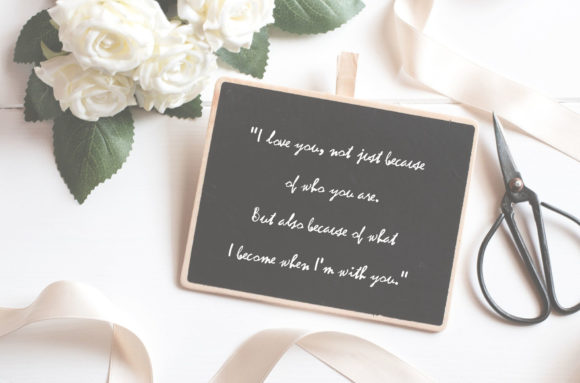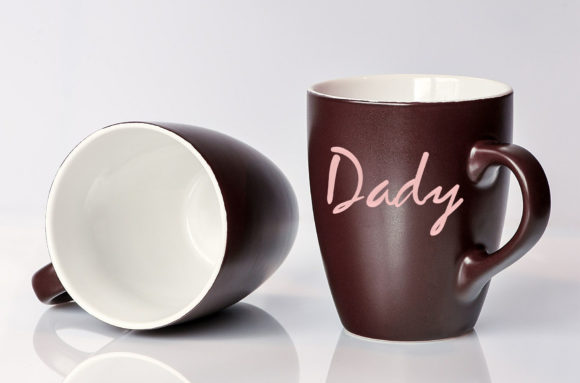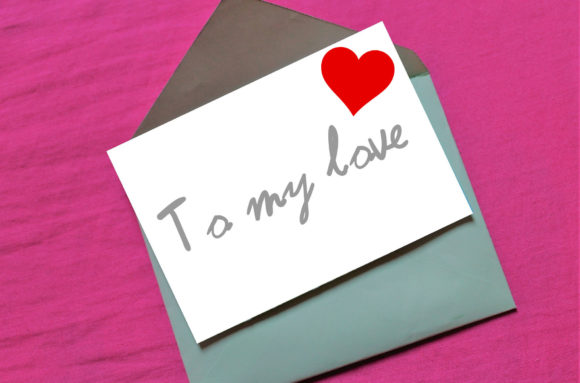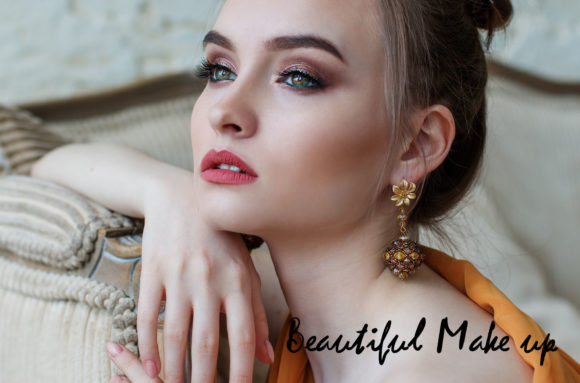
Heart Font: Elevate Your Design with Elegance and Sophistication
Are you looking for a font that exudes luxury, elegance, and sophistication? Look no further than the Heart Font, a beautiful and delicate script font that is sure to add a touch of glamour to any design project. With its unique and flowing characters that dance along the baseline, this font is perfect for designers and crafters who want to create stunning and high-end designs.
What Makes Heart Font So Special?
The Heart Font is a true gem in the world of typography. Its elegant and cursive design makes it perfect for a wide range of design projects, from wedding invitations and branding materials to packaging and advertising. The font features characters that are intricately designed to flow along the baseline, creating a beautiful and harmonious visual effect.
One of the standout features of the Heart Font is its PUA (Private Use Area) encoding. This means that the font includes a range of glyphs and swashes that can be easily accessed and used to add a touch of personality to your designs. With PUA encoding, you can effortlessly create stunning and unique designs that are sure to impress.
Perfect for Luxury Designs
The Heart Font is perfect for designers and crafters who want to create luxury designs that exude elegance and sophistication. Whether you’re working on a high-end branding project, a luxury packaging design, or a wedding invitation, this font is sure to add a touch of glamour and refinement.
The font’s elegant and cursive design makes it perfect for creating beautiful and eye-catching headlines, titles, and text. You can use it to create stunning and sophisticated designs that are sure to leave a lasting impression on your clients and audience.
Key Features of Heart Font
Here are some of the key features that make the Heart Font a must-have for designers and crafters:
- Beautiful and delicate script font: The Heart Font features a unique and flowing script design that is perfect for creating elegant and sophisticated designs.
- PUA encoded: The font includes a range of glyphs and swashes that can be easily accessed and used to add a touch of personality to your designs.
- Luxury and elegant design: The font’s elegant and cursive design makes it perfect for creating high-end designs that exude luxury and sophistication.
How to Use Heart Font in Your Designs
Using the Heart Font in your designs is easy. Here are some tips to get you started:
- Pair it with a sans-serif font: Pair the Heart Font with a sans-serif font to create a beautiful and contrasting visual effect.
- Use it for headlines and titles: Use the Heart Font to create stunning and sophisticated headlines and titles that are sure to grab attention.
- Experiment with glyphs and swashes: Experiment with the font’s glyphs and swashes to add a touch of personality to your designs.
The Heart Font is a beautiful and delicate script font that is perfect for designers and crafters who want to create luxury designs that exude elegance and sophistication. With its unique and flowing characters, PUA encoding, and easy-to-use design, this font is sure to become a staple in your design toolkit. So why wait? Download the Heart Font today and start creating stunning and high-end designs that are sure to impress.